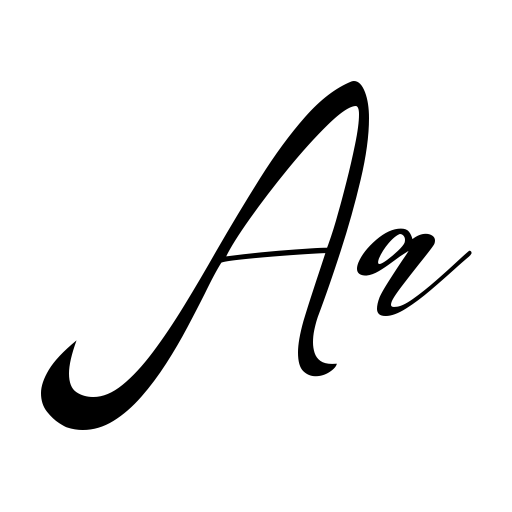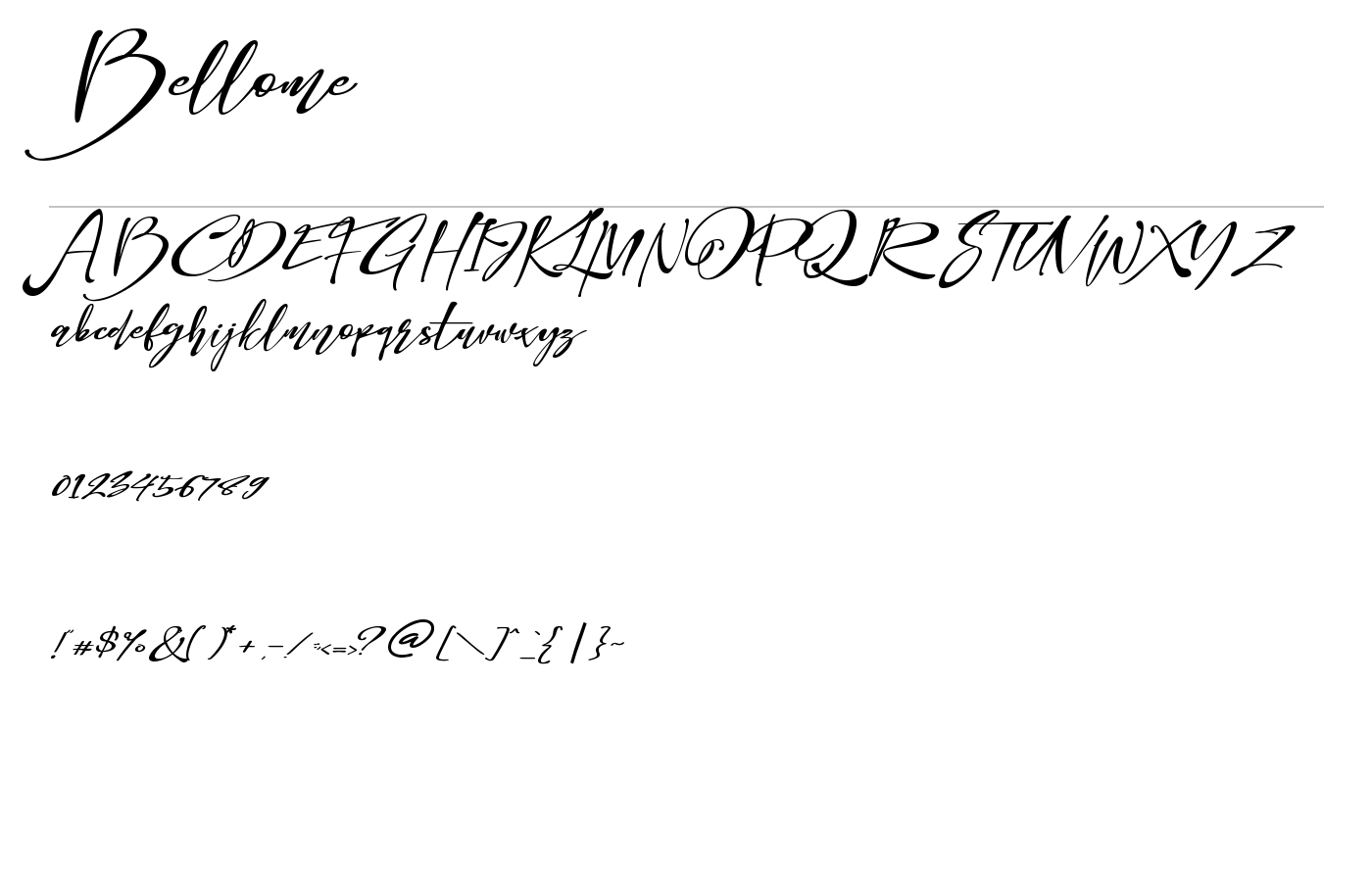
Bellome is a stylish script font with elegant, flowing strokes that mimic natural handwriting. It features a dynamic contrast between thick and thin lines and includes both uppercase and lowercase letters with smooth, cursive connections, making it perfect for sophisticated and artistic branding, invitations, and logos. This font conveys a modern yet graceful personality, ideal for adding a personal touch to creative and refined designs.
Bellome Font
About Bellome Font
| Font family | Bellome Font |
| Designer | 2019 Lettersiro |